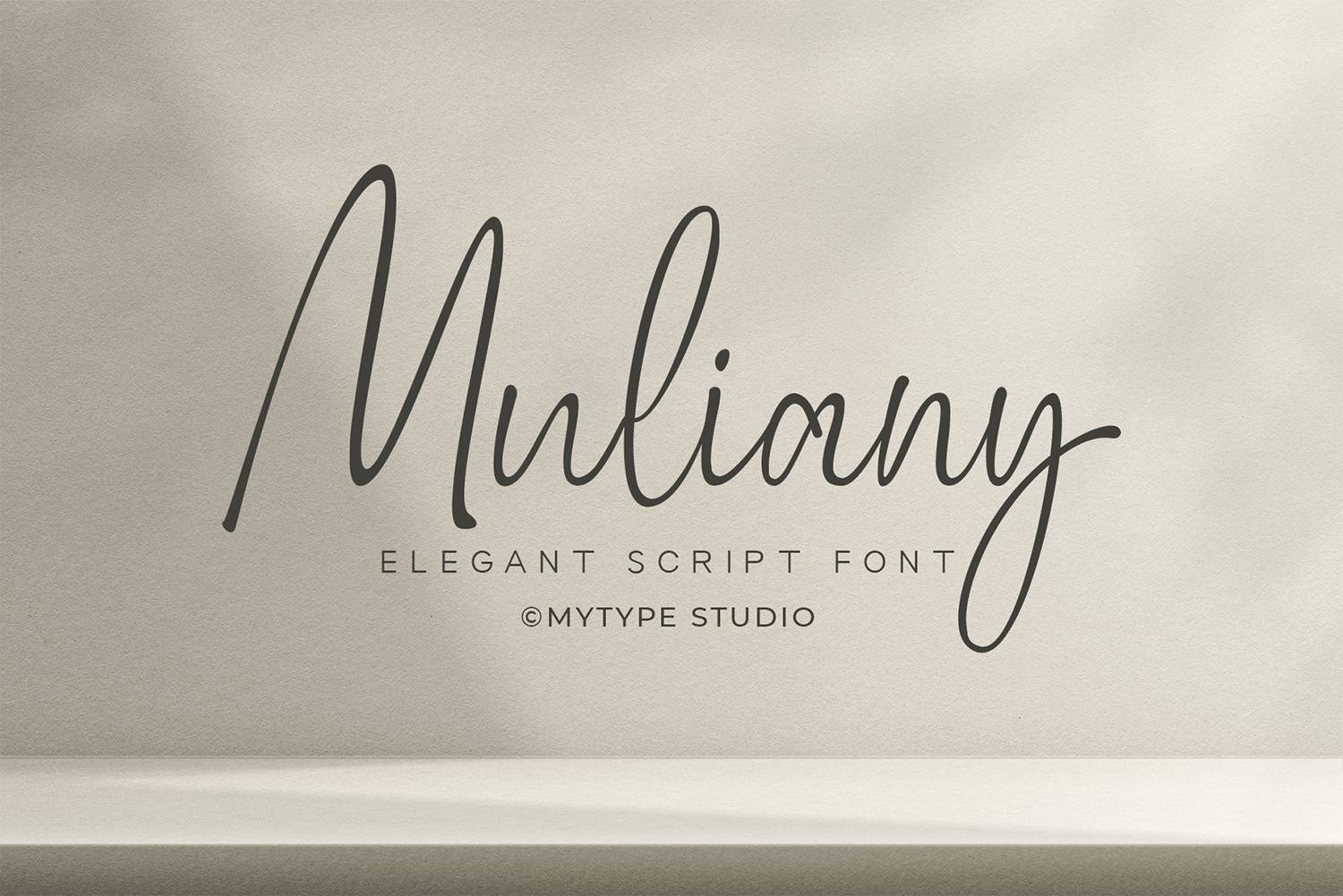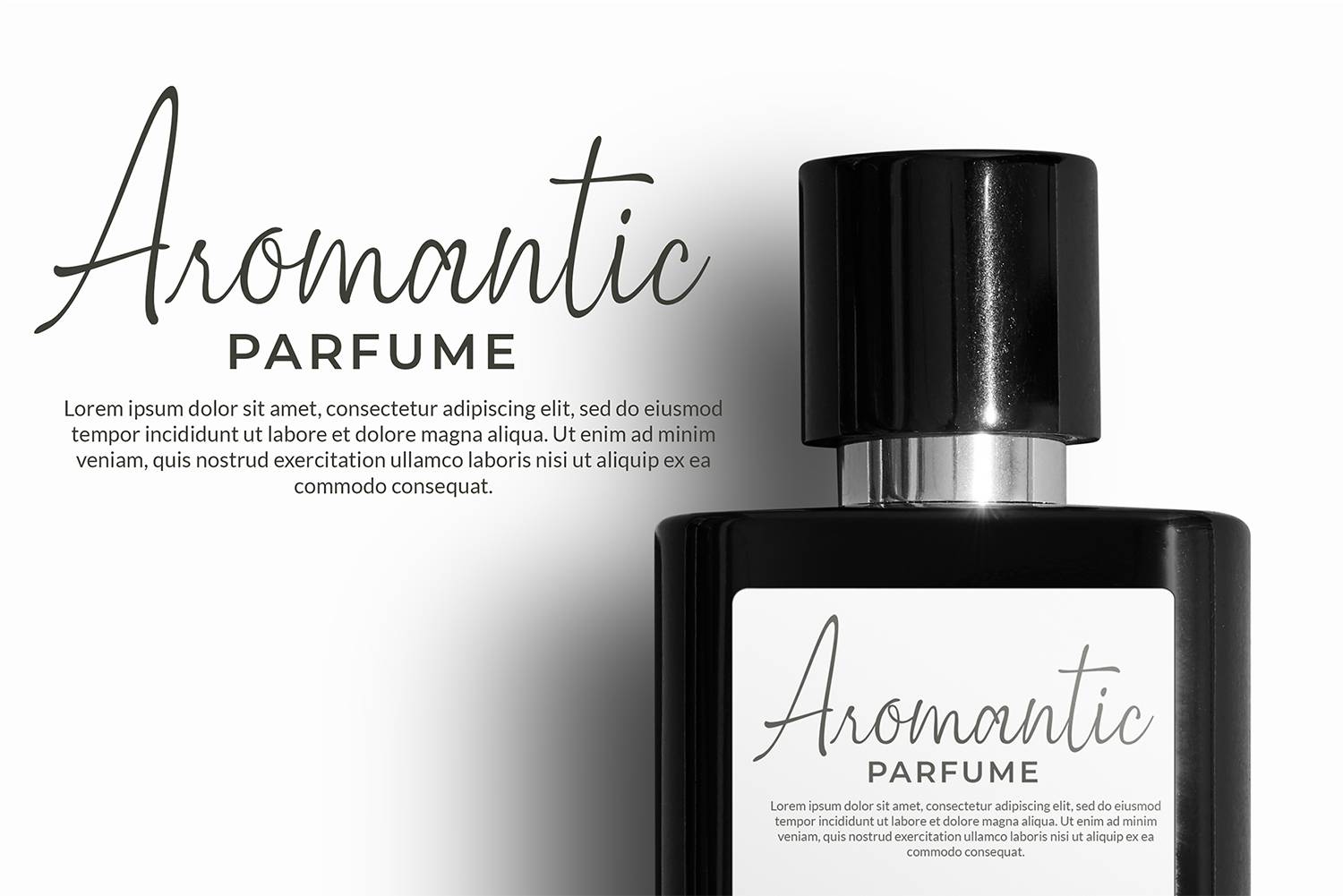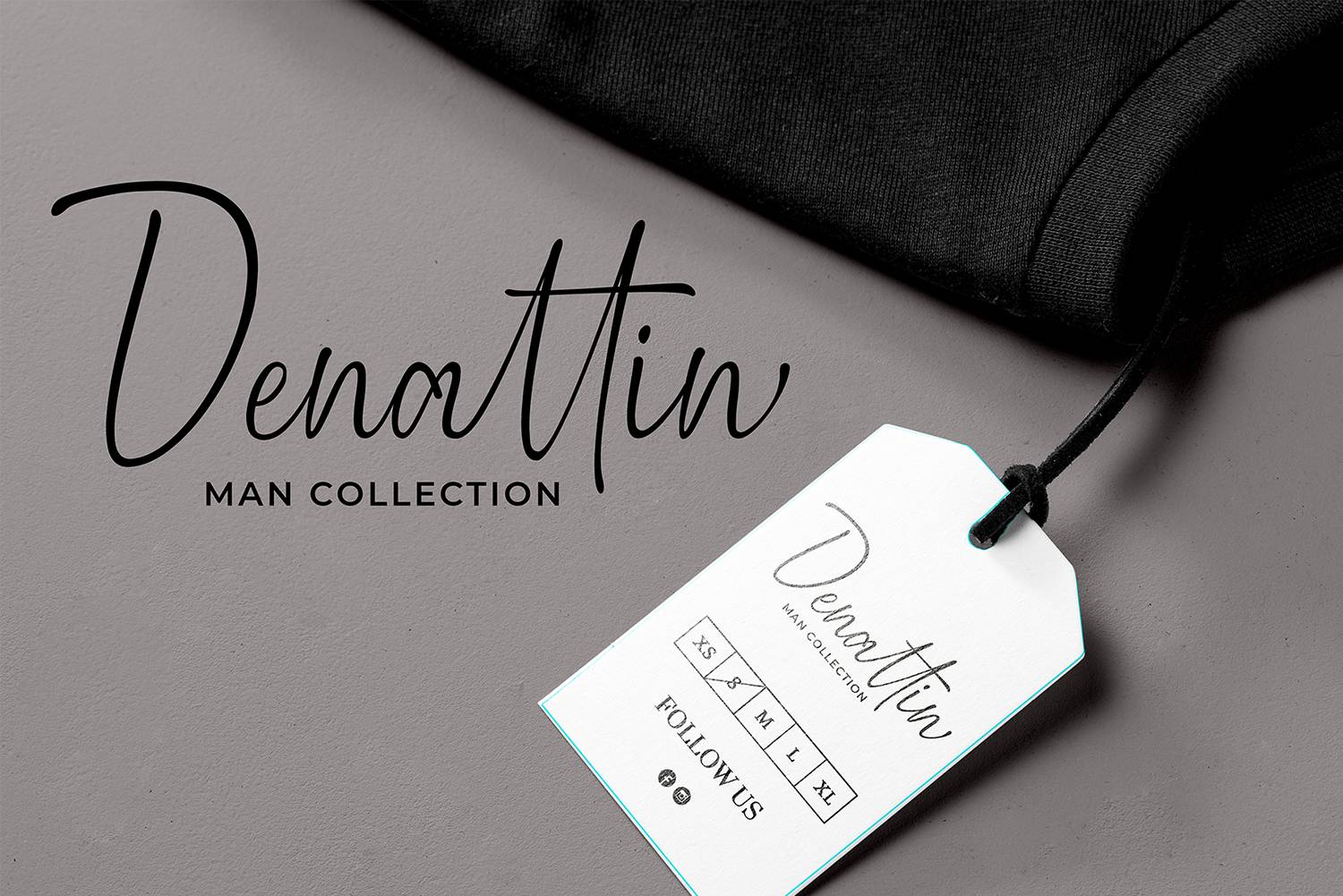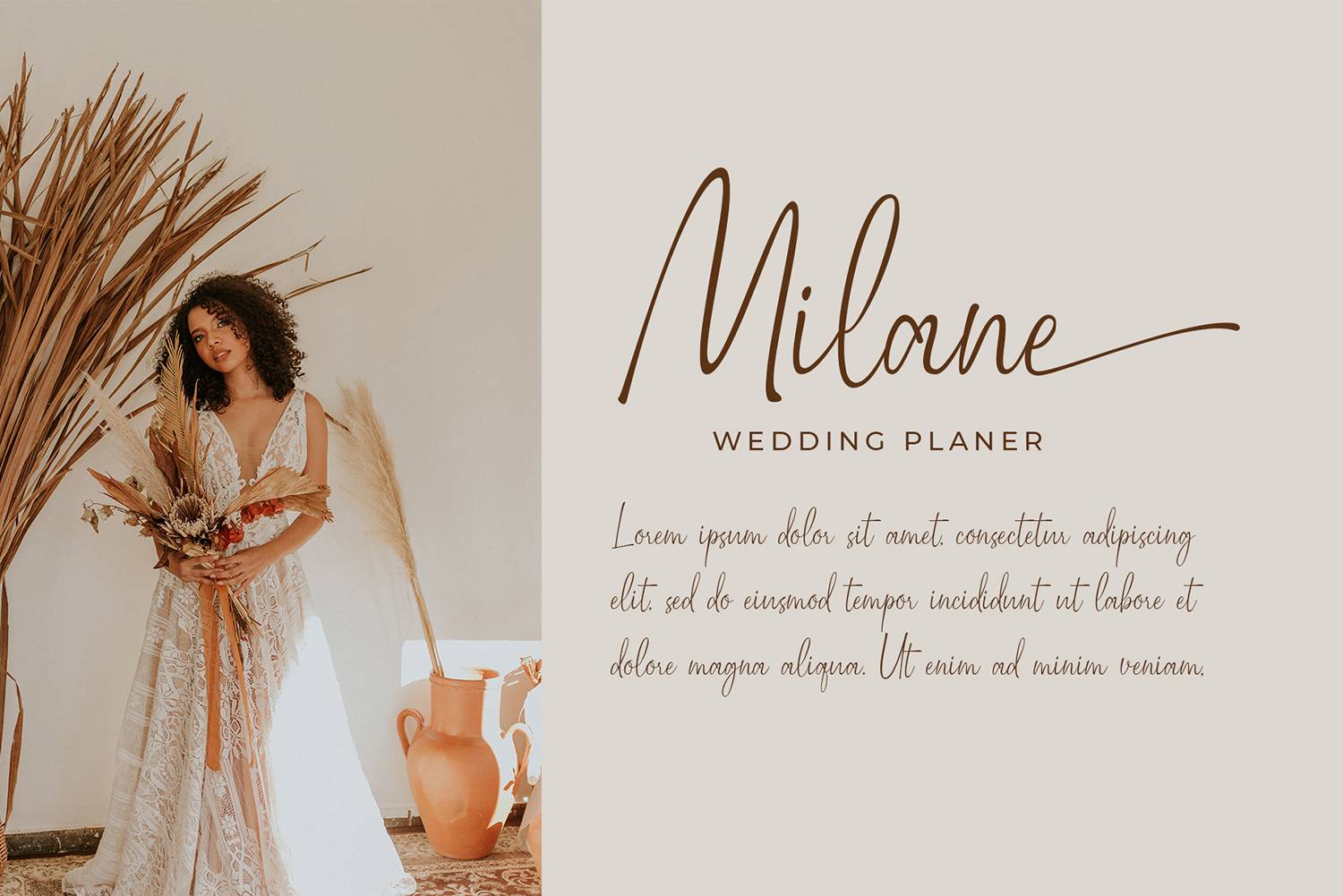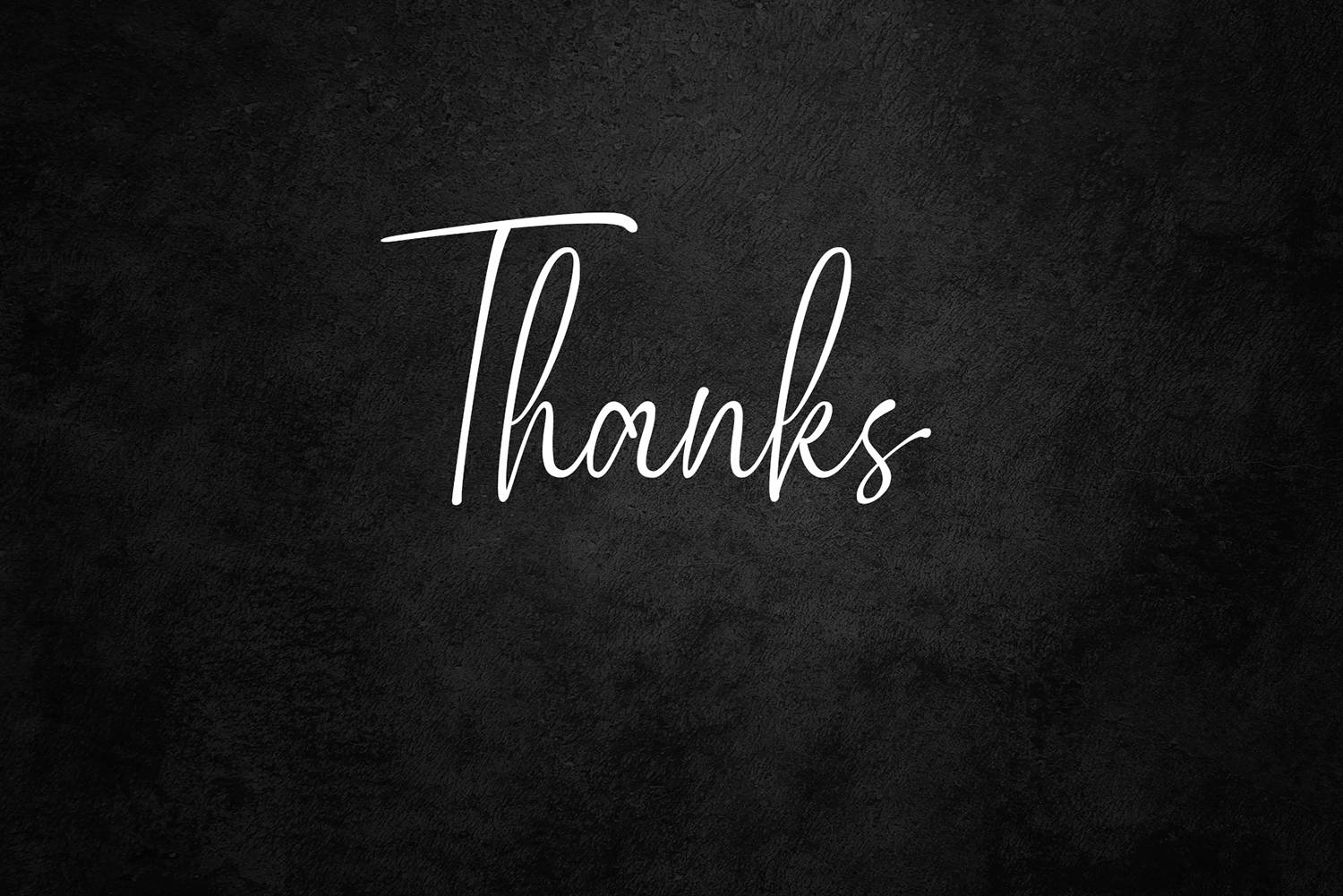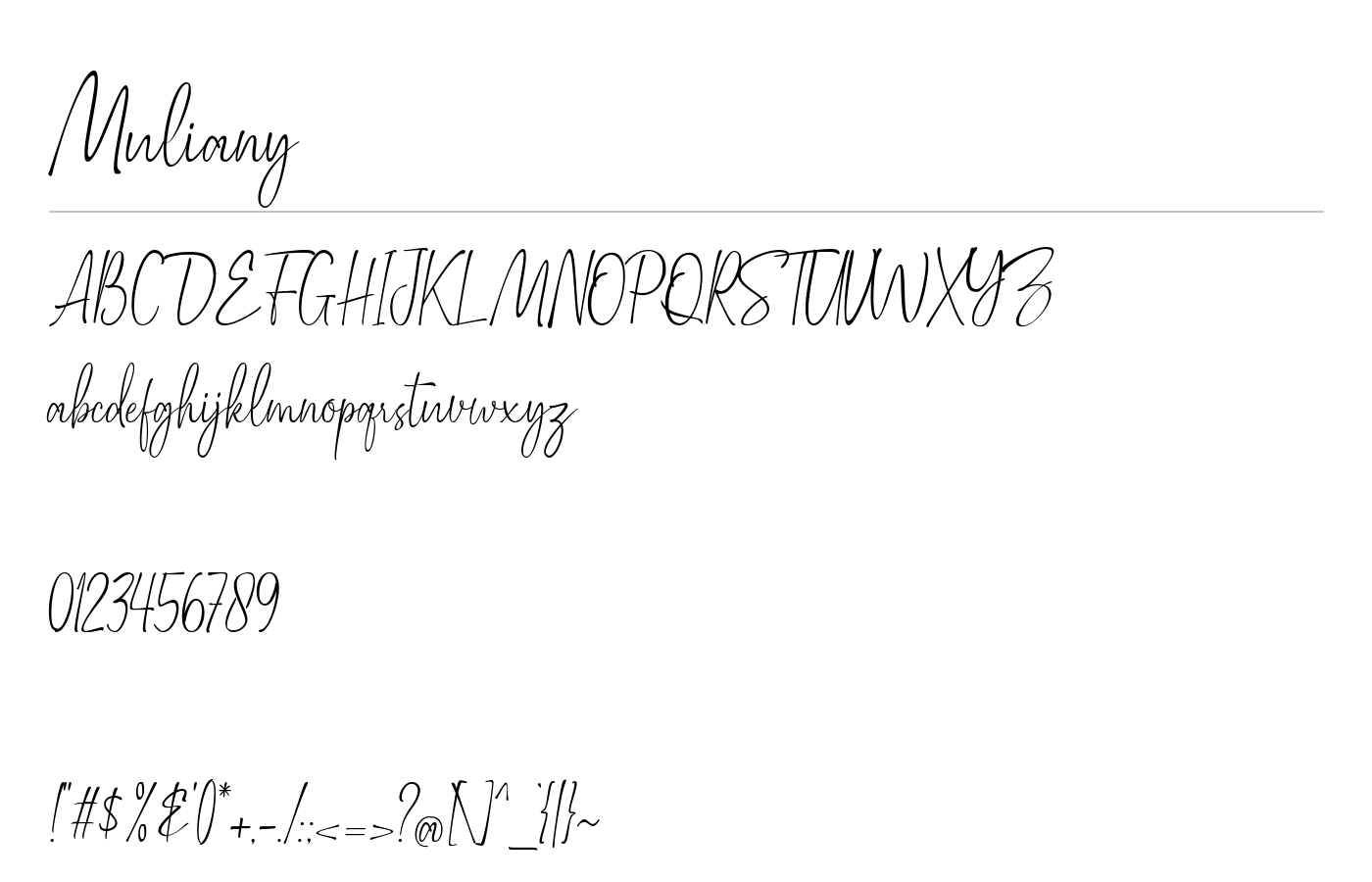
Muliany is a delicate, handwritten script font with a slender, elegant appearance, featuring tall, narrow letterforms and a consistent light weight. Its smooth, flowing strokes and playful, informal style make it ideal for personal branding, invitations, and fashion-related projects seeking a modern yet approachable feel. The font excels in display uses where a touch of refined personality and creativity is desired.
Muliany Font
About Muliany Font